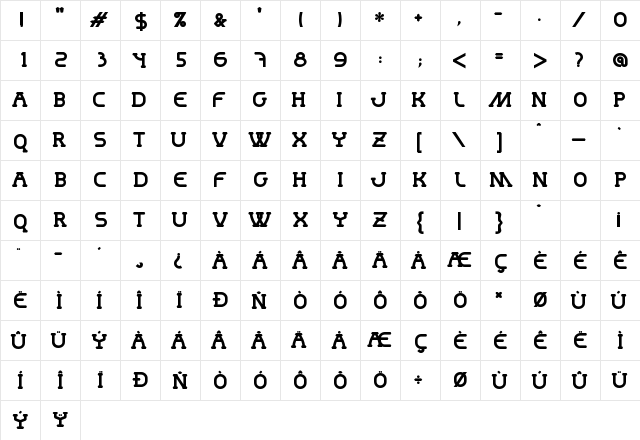
MastumBold Regular
| Foundry | Xerographer Fonts |
| Designer | Max Infeld - Xerographer Fonts |
Design Context for MastumBold Typeface
MastumBold takes a measured approach to typography — its balanced proportions and neutral character make it a reliable workhorse for both digital and print work. Its bold stroke weight gives it real presence on the page.